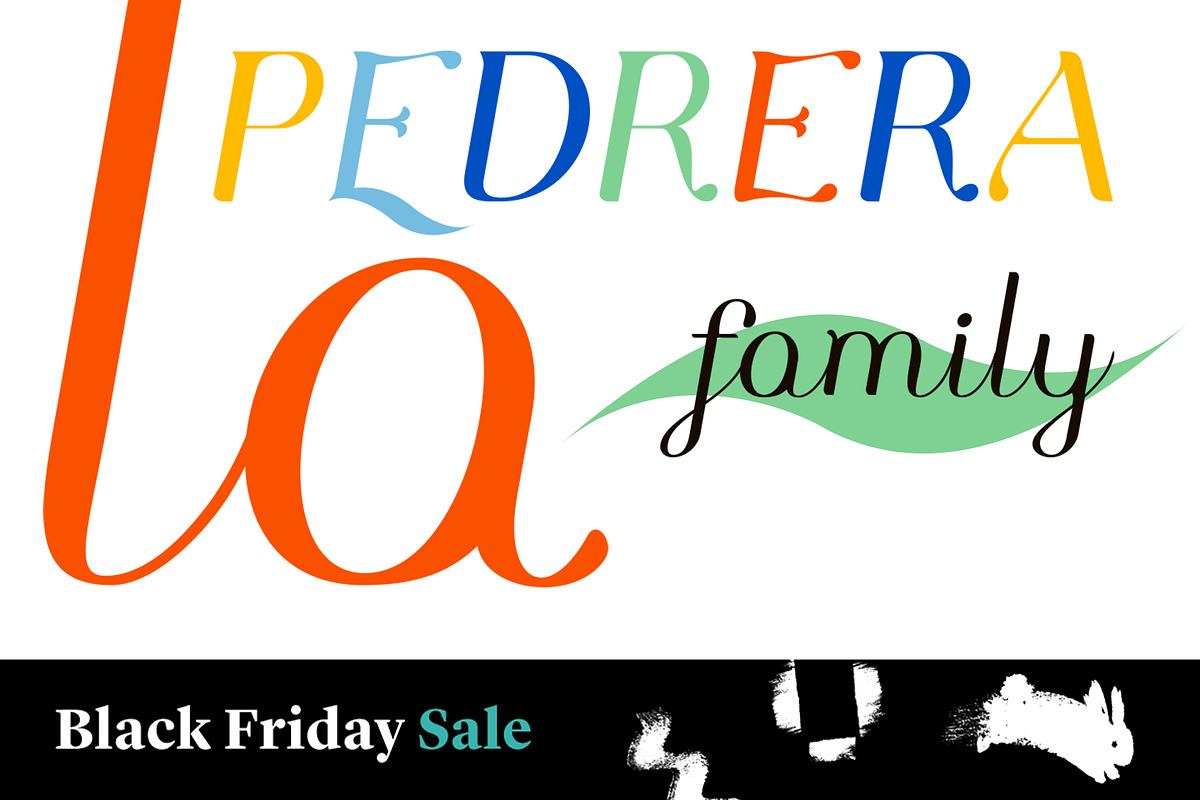
Pedrera Font Family Free Download is a sophisticated and versatile type family that blends modern simplicity with timeless elegance. Designed with clean lines, balanced proportions, and a smooth, contemporary aesthetic, Pedrera is ideal for branding, editorial design, corporate materials, web typography, and refined packaging.
This family offers multiple weights and styles, making it easy to create hierarchy and visual harmony across your projects. Whether you're crafting a sleek logo, building a polished website, or laying out a professional magazine spread, Pedrera adapts seamlessly to both text and display applications.